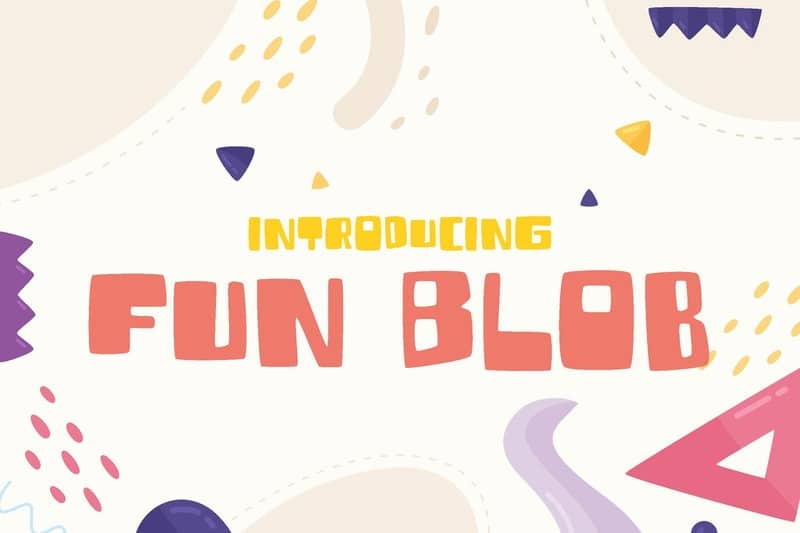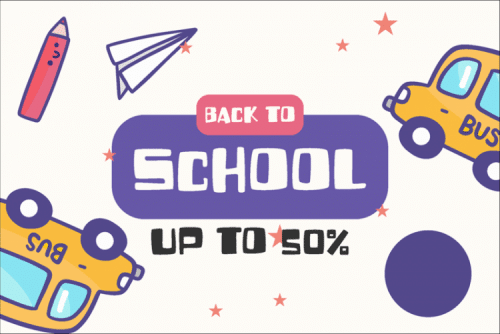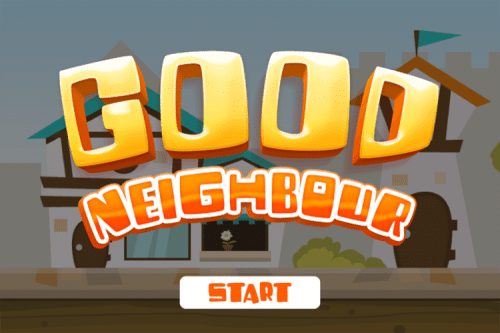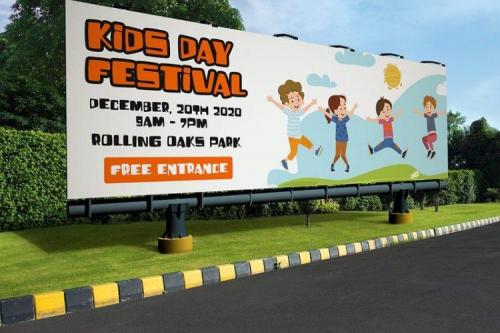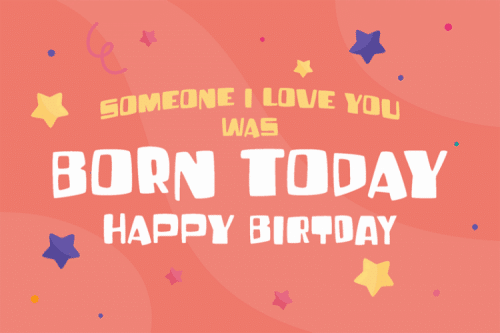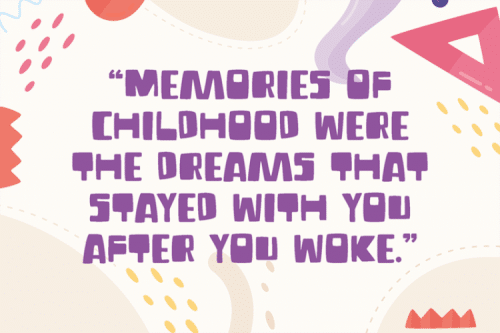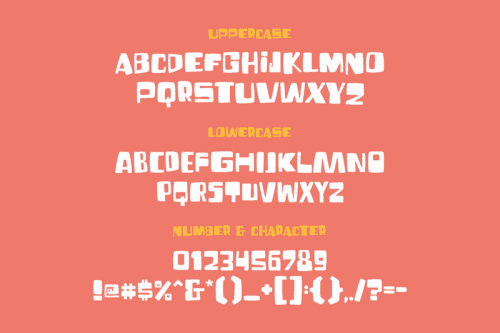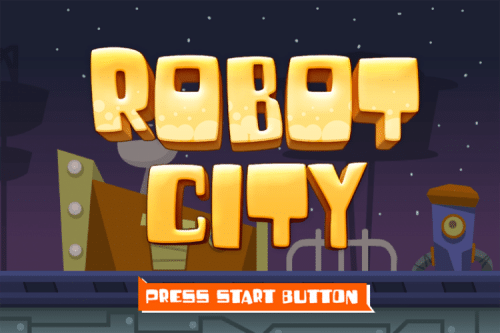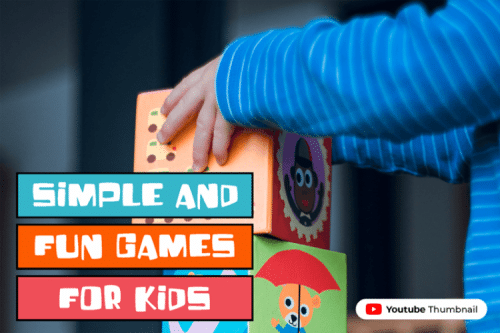
Having a rounded corner with quirky, and happy shape, will make Fun Blob emphasize on every word you put on the screen.
Suit perfectly for Online Games, poster, movie title, fast food menu, magazine, youtube covers, youtube thumbnails, social media page covers and so on…